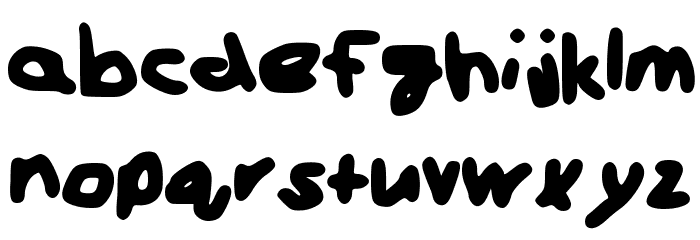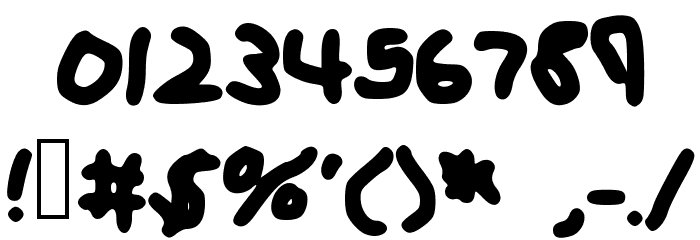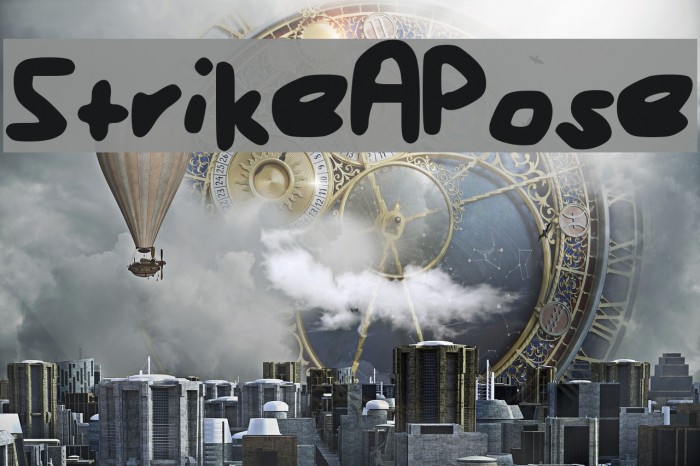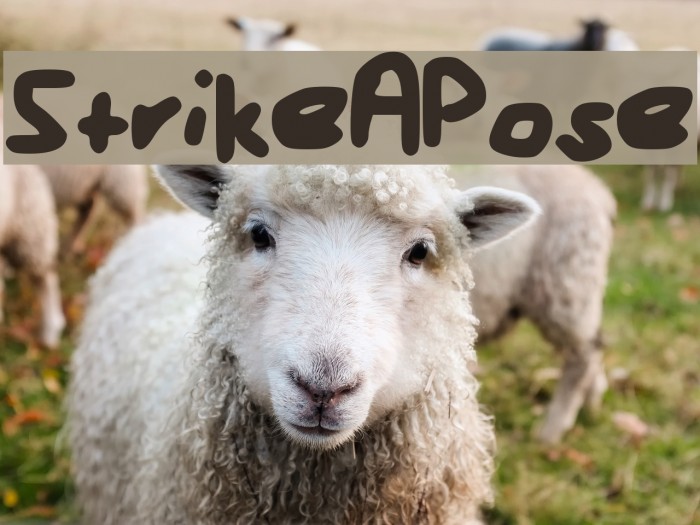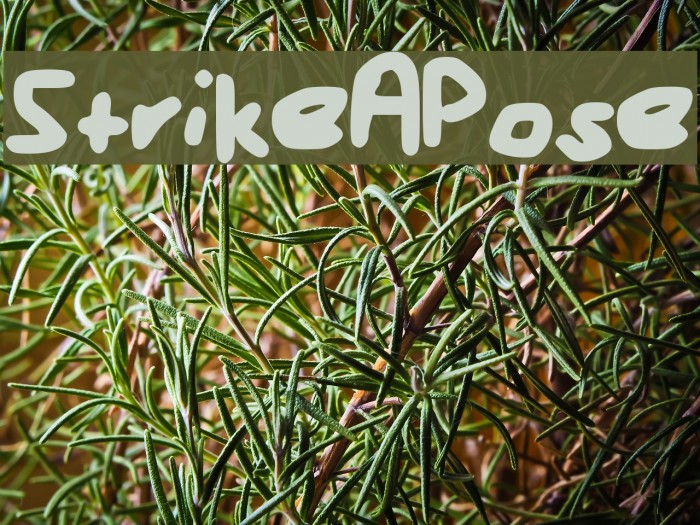
StrikeAPose Font
This playful and bold font features a handwritten style with a casual and informal appearance. The characters are rounded and slightly irregular, giving them a friendly and approachable feel. The uppercase and lowercase letters are consistent in their playful design, with a noticeable thickness that adds to their boldness. The numbers and special characters maintain the same whimsical style, making the font versatile for various creative projects. Its unique character shapes and lively appearance make it stand out, perfect for designs that require a touch of fun and personality.
A bold, playful handwritten font with a casual and friendly style.
- Proposed Projects: Ideal for children's books, playful branding, casual invitations, and creative social media graphics.
- Overall Style: Playful